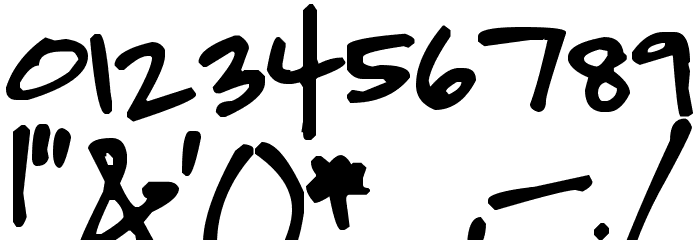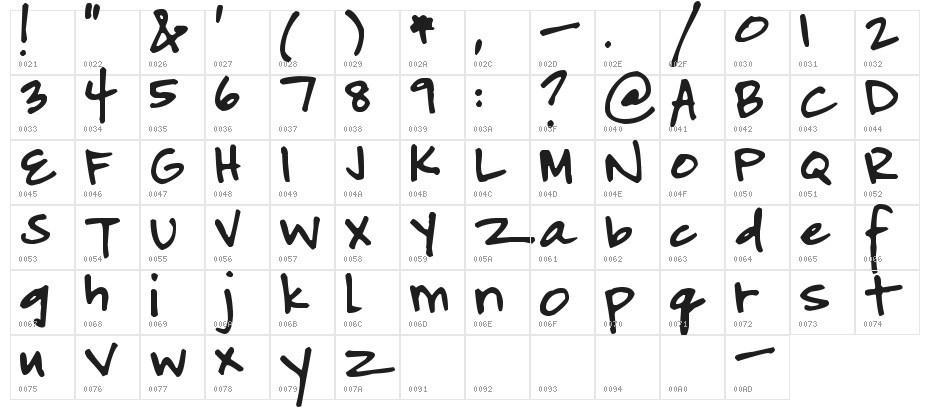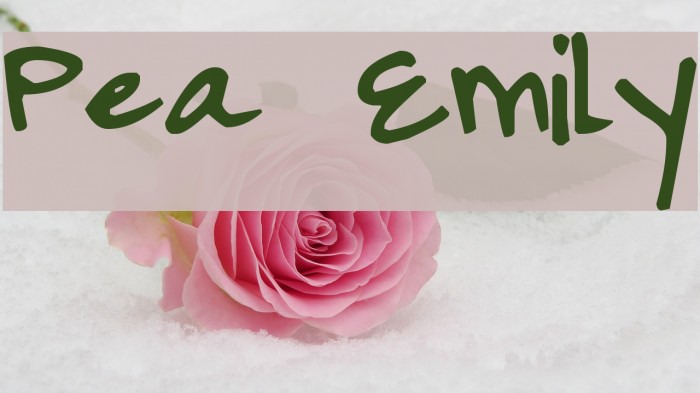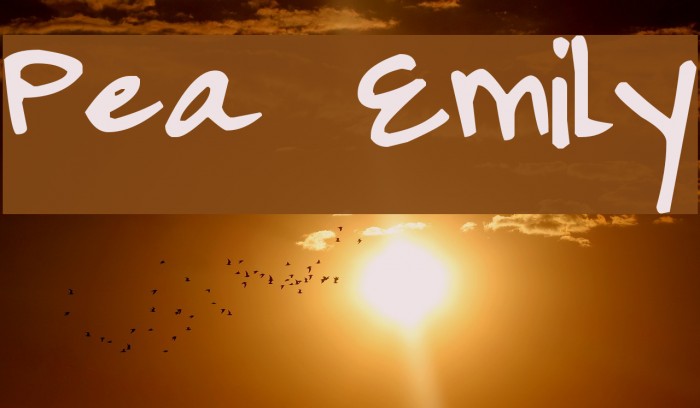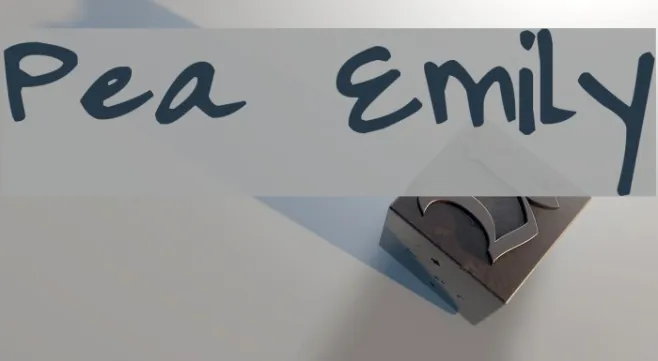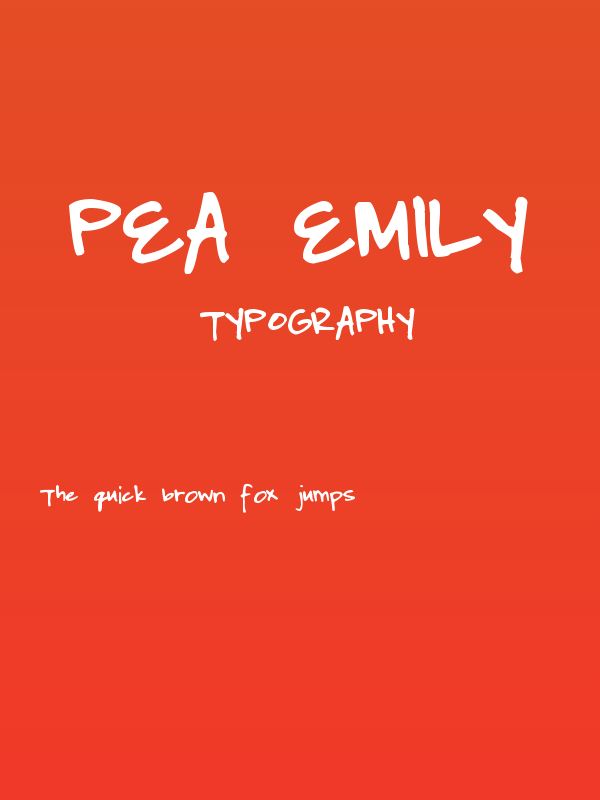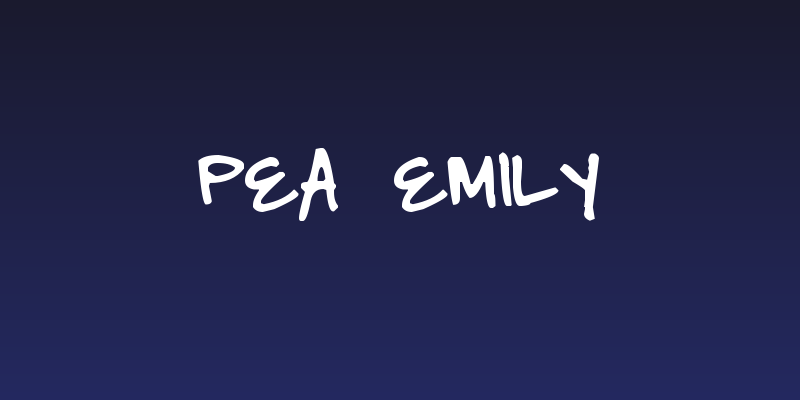
Pea Emily Font
Pea Emily Description
This font features a playful and informal handwritten style, characterized by its casual and friendly appearance. The letters are slightly slanted, giving it a dynamic and energetic feel. The strokes are uneven, adding to its charm and authenticity, reminiscent of personal notes or diary entries. The uppercase and lowercase letters are well-proportioned, maintaining readability despite their whimsical nature. Numbers and special characters follow the same playful design, making the font versatile for various creative applications.
| Use Case | Greeting cards, Personal notes, Informal branding |
| Proposed Projects | Ideal for personal projects, greeting cards, children's books, and informal branding. |